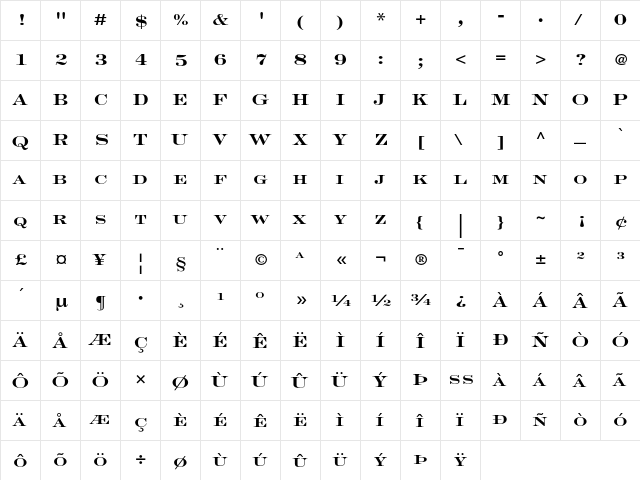
Engravers LH Bold Face Font Preview
Engravers LH Bold Face
Design Context for Engravers LH Typeface
Engravers LH takes a measured approach to typography — its balanced proportions and neutral character make it a reliable workhorse for both digital and print work. Its bold stroke weight gives it real presence on the page.